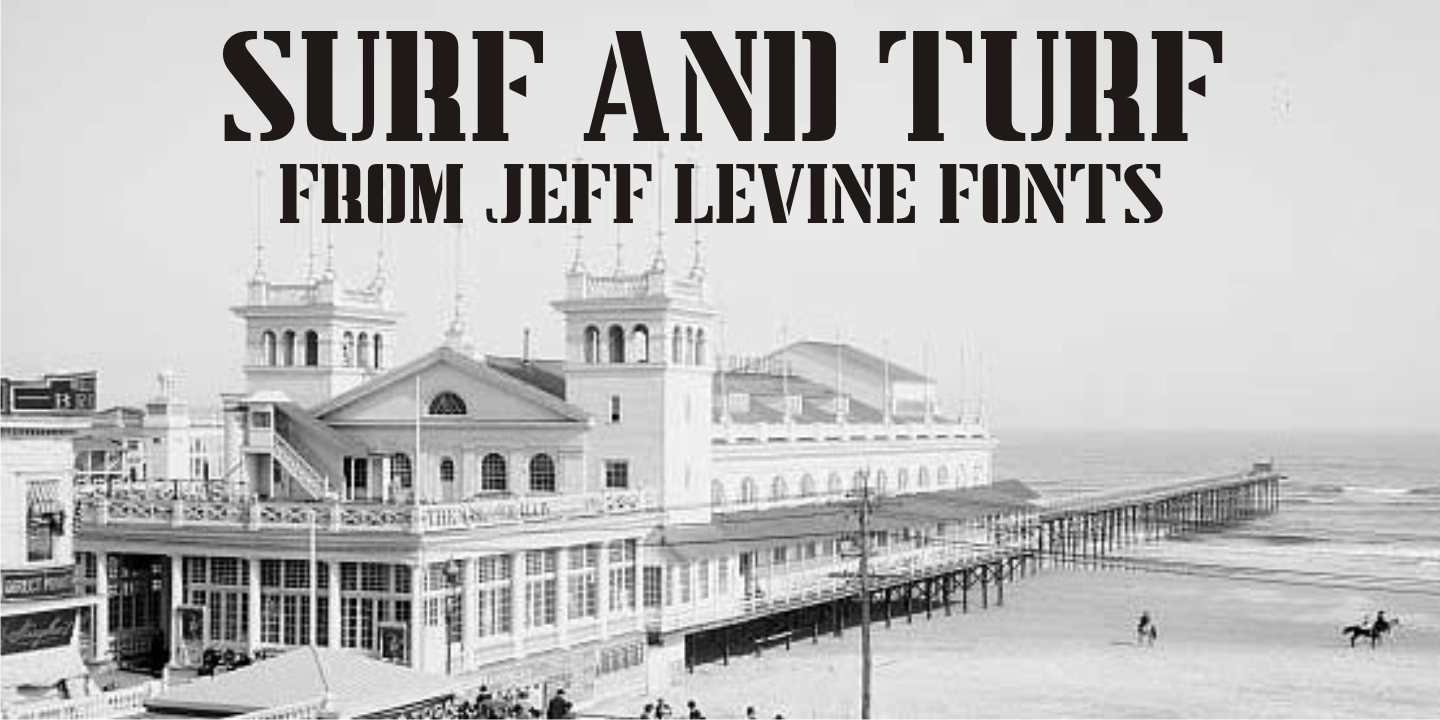
Surf and Turf
Surf and Turf JNL was redrawn from hand-lettering on a souvenir folder for an event believed to be sponsored by Miami Beach's exclusive Surf Club on March 19, 1938.
Entitled "Steeplechase Pier March 19 Surf Club Stroller", it's now lost to time whether the event recreated some of the fun and games of Atlantic City's famed Steeplechase Pier at the Surf Club, or if this was a special event trip to the New Jersey venue.
It's also highly possible that the Steeplechase Pier referred to in the title was the one at Coney Island.